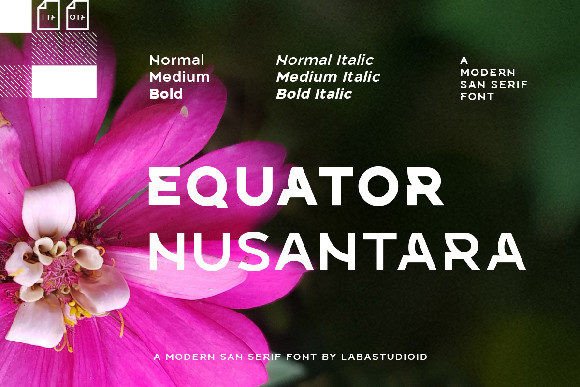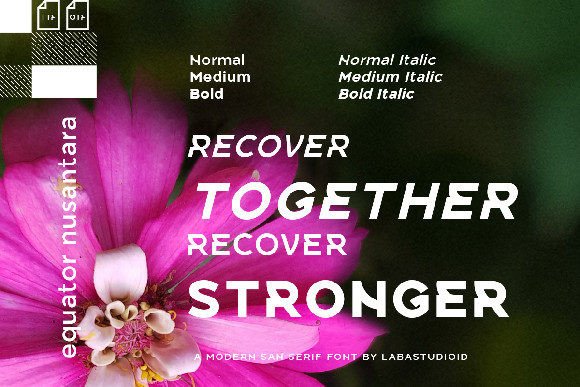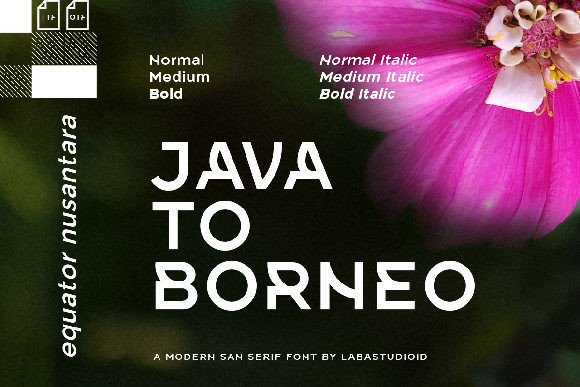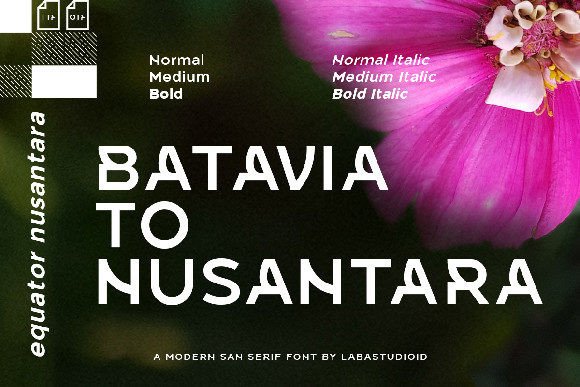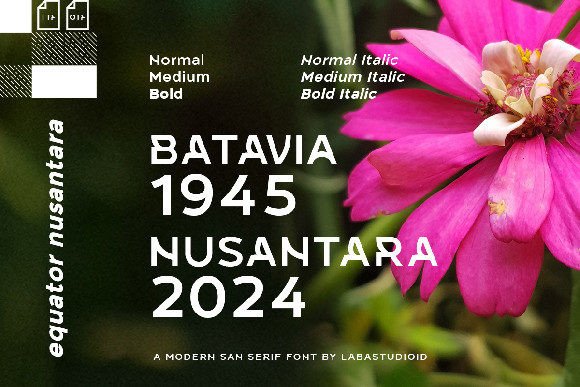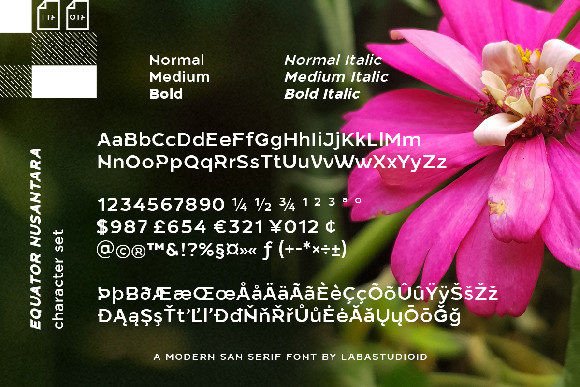
Introducing Equator Nusantara Font: Elevate Your Designs with a Unique Twist
In the world of typography, a good font can make all the difference in creating visually stunning designs. For designers and crafters looking to add a touch of modernity and character to their work, Equator Nusantara Font is an excellent choice. This modern sans serif font boasts a unique indentation style for some of its letters, setting it apart from other fonts and making it a standout addition to any design project.
What Makes Equator Nusantara Font Special?
Equator Nusantara is a very modern sans serif font with a unique indentation style for some of the letters that makes each of your designs more characterful, unique, and highly recognizable. The font’s clean lines and minimalist aesthetic provide a versatile canvas for designers to work with, while the distinctive indentations add a creative flair that can elevate a design from ordinary to extraordinary.
Key Features of Equator Nusantara Font
- Modern Sans Serif Design: Equator Nusantara features a sleek, contemporary sans serif design that is perfect for a wide range of applications, from digital media to print materials.
- Unique Indentation Style: The font’s unique indentation style for select letters adds a touch of personality and flair to any design, making it more engaging and memorable.
- Highly Versatile: With its clean and simple design, Equator Nusantara can be used for various purposes, including branding, advertising, packaging, and more.
- Easy to Read: Despite its unique features, Equator Nusantara remains highly legible, ensuring that your message is communicated clearly and effectively.
Who Can Benefit from Using Equator Nusantara Font?
Equator Nusantara Font is an excellent choice for a variety of designers and crafters, including:
- Graphic Designers: Looking for a modern and versatile font to use in branding, advertising, and other graphic design projects.
- Digital Artists: Seeking a unique font to add character to their digital art and illustrations.
- Crafters: Creating handmade products, such as greeting cards, invitations, and other paper crafts, and wanting to add a personal touch with a distinctive font.
- Web Designers: Needing a clean, modern sans serif font that is highly legible on digital devices for websites and mobile applications.
How to Use Equator Nusantara Font Effectively
To make the most of Equator Nusantara Font, consider the following tips:
- Pair with Complementary Fonts: Use Equator Nusantara as a headline font and pair it with a complementary serif or script font for body text to create visual interest.
- Experiment with Colors: Take advantage of the font’s versatility by experimenting with different colors and gradients to match your brand’s aesthetic.
- Play with Indentations: Highlight specific words or phrases by emphasizing the unique indentations, adding emphasis and personality to your text.
| Font Name | Equator Nusantara Font |
| Author | Labastudioid |
Equator Nusantara Font is a game-changer for designers and crafters looking to infuse their work with a modern, unique twist. Its blend of clean lines, modern sans serif design, and distinctive indentations makes it an excellent choice for a wide range of projects. By incorporating Equator Nusantara into your design toolkit, you’ll be able to create characterful, unique, and highly recognizable designs that stand out in a crowded creative landscape.